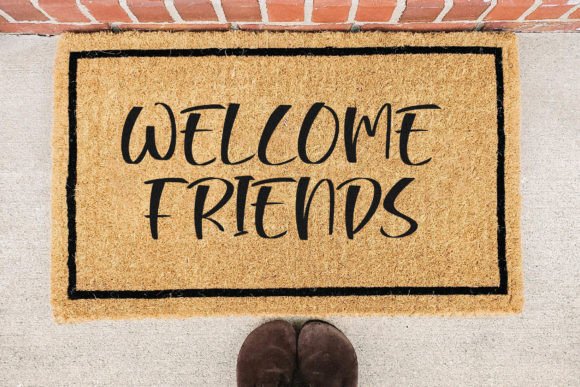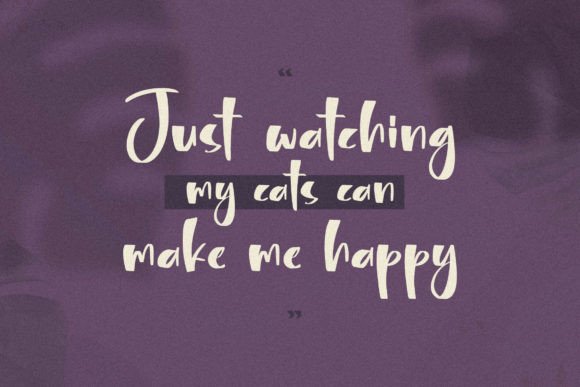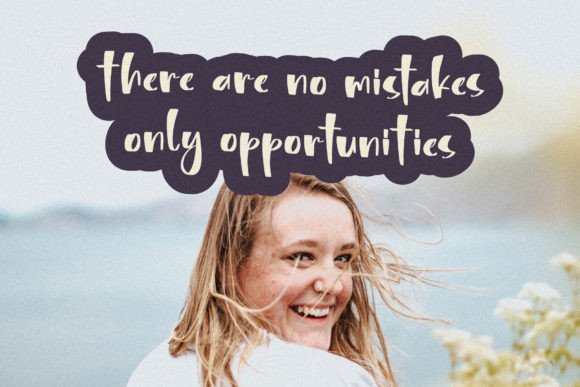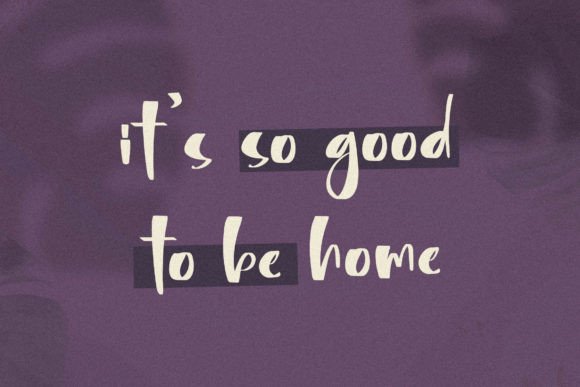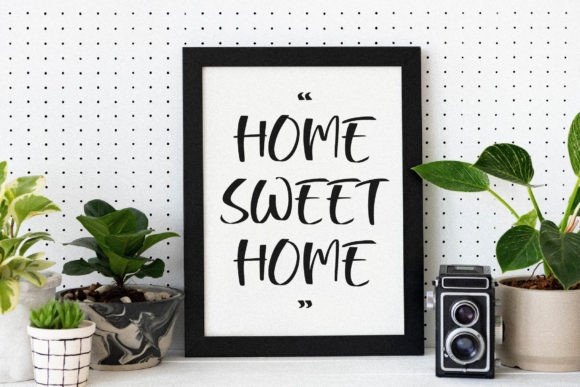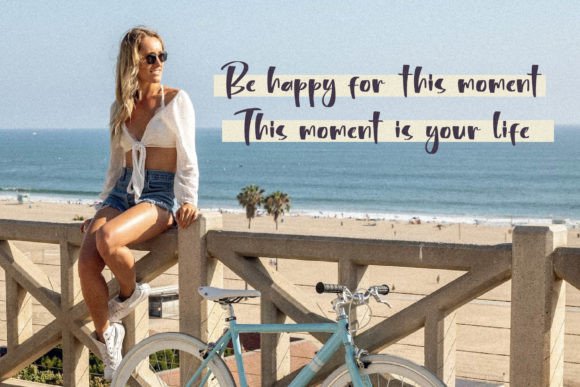
Discover the Beauty of Bouthram Font: A Modern Handwritten Script for Creative Projects
I’ll never forget the moment I stumbled upon the Bouthram Font while working on a branding project for a boutique client. I had spent hours searching for the perfect font, but nothing seemed to capture the essence of her elegant and modern brand. That was until I discovered Bouthram – a stunning handwritten font that instantly elevated my design and exceeded my client’s expectations.
An Honest Review of Bouthram Font
What I Love About Bouthram Font
- ✨ Elegant and modern handwritten script with a touch of sophistication
- ✅ Highly versatile and suitable for a wide range of creative projects
- 💫 Beautifully crafted to add a personal touch to any design
- 🎨 Extensive range of OpenType features, glyphs, and stylistic alternates
While Bouthram Font is an exceptional font, there are a few minor quirks to be aware of:
- ⚠️ Some users may find the font requires a slight adjustment in kerning for optimal results
- 🤔 Limited availability of certain special characters, but suitable alternatives are provided
The Backstory Behind Bouthram Font
Bouthram Font was crafted with passion and dedication by a talented type designer. Inspired by the beauty of handwritten scripts, the designer aimed to create a font that would bring a touch of elegance and sophistication to any creative project. Through meticulous attention to detail and a deep understanding of typography, Bouthram Font was born – a modern handwritten script that has captured the hearts of designers and crafters worldwide.
Q: What type of projects is Bouthram Font suitable for?
A: Bouthram Font is highly versatile and suitable for a wide range of creative projects, including logos, branding projects, homeware designs, product packaging, and more.
Q: Does Bouthram Font support OpenType features?
A: Yes, Bouthram Font features an extensive range of OpenType features, glyphs, and stylistic alternates, allowing you to add unique touches to your designs.
Q: Is Bouthram Font easy to read?
A: Yes, Bouthram Font is designed to be highly legible, making it perfect for body text, headlines, and other applications where readability is crucial.